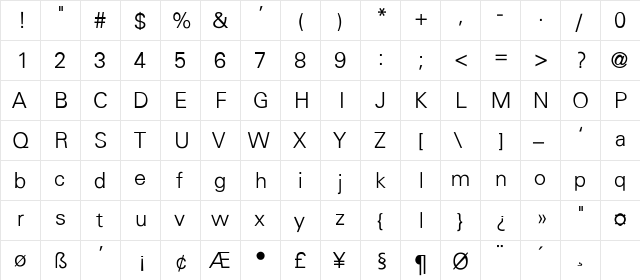
Insular Thin-Light Regular
Design Context for Insular Thin-Light Typeface
Insular Thin-Light takes a measured approach to typography — its balanced proportions and neutral character make it a reliable workhorse for both digital and print work. Its slender proportions lend an understated elegance to any composition.